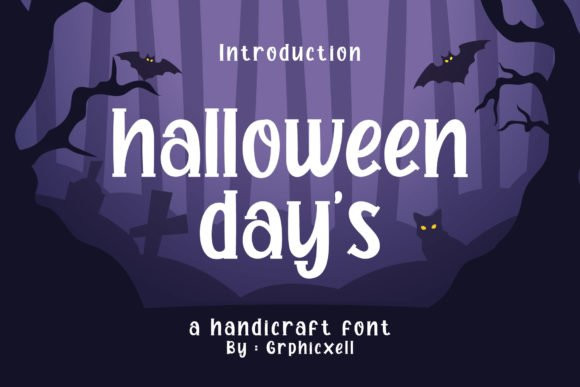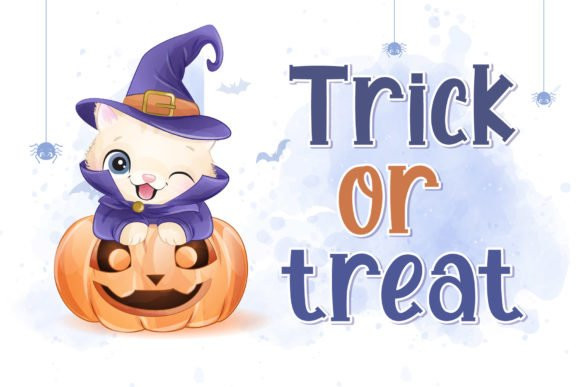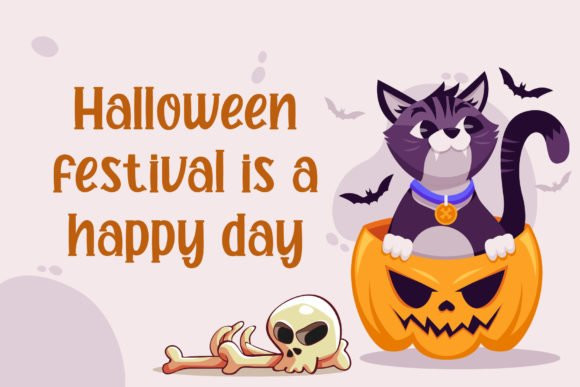
Halloween Day’s Font
Haloween Day’s is a stylish display font for a variety of designs. Haloween Day’s can be used for products such as handcraft, product packaging, quotes, product design, labels, photography, watermarks, logos & branding. Use it for your upcoming crafting projects and see how they come alive!